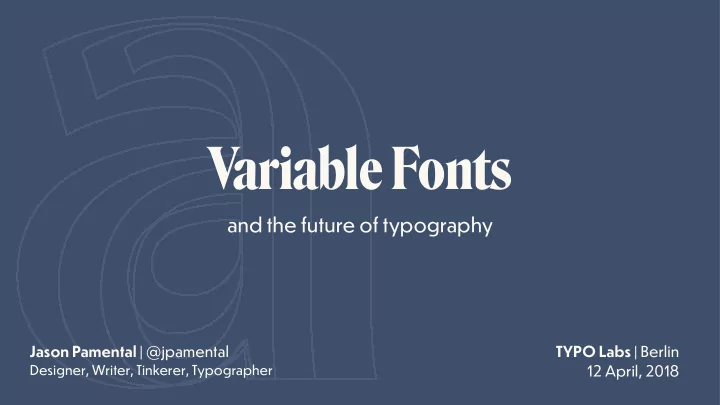
and the future of typography
Variable Fonts
Variable Fonts and the future of typography Jason Pamental | @jpamental TYPO Labs | Berlin Designer, Writer, Tinkerer, Typographer 12 April, 2018 cosmografia del minor mondo Type well used is invisible as type Beatrice Warde
and the future of typography
—Beatrice Warde
“The Crystal Goblet”, 1932
Can we set this in Helvetica? Change to “T ype should be seen and not heard” Stop asking for fonts. You can’t have them. We have to load more javascript
—Rich Rutter, author of ‘Web Typography’
then came
width width weight
79lb
weight
53lb
x-height x-height
'wght' font-weight: 88; font-variation-settings: 'wght' 88;
Featuring Output Sans by DJR, Louvette by CJ Dunn, & Amstelvar & Decovar by David Berlow & Type Network
'wght' font-weight: 88; font-variation-settings: 'wght' 88; font-weight: 264; font-variation-settings: 'wght' 264;
Featuring Output Sans by DJR, Louvette by CJ Dunn, & Amstelvar & Decovar by David Berlow & Type Network
font-stretch: 265; font-variation-settings: 'wdth' 265; 'wdth'
Featuring Output Sans by DJR, Louvette by CJ Dunn, & Amstelvar & Decovar by David Berlow & Type Network
font-stretch: 265; font-variation-settings: 'wdth' 265; font-stretch: 402; font-variation-settings: 'wdth' 402; 'wdth'
Featuring Output Sans by DJR, Louvette by CJ Dunn, & Amstelvar & Decovar by David Berlow & Type Network
font-stretch: 265; font-variation-settings: 'wdth' 265; 'wdth'
Featuring Output Sans by DJR, Louvette by CJ Dunn, & Amstelvar & Decovar by David Berlow & Type Network
font-variation-settings: 'slnt' 0; 'slnt'
Featuring Output Sans by DJR, Louvette by CJ Dunn, & Amstelvar & Decovar by David Berlow & Type Network
font-variation-settings: 'slnt' 0; font-variation-settings: 'slnt' 1000; 'slnt'
Featuring Output Sans by DJR, Louvette by CJ Dunn, & Amstelvar & Decovar by David Berlow & Type Network
font-style: normal; font-variation-settings: 'ital' 0; 'ital'
Featuring Output Sans by DJR, Louvette by CJ Dunn, & Amstelvar & Decovar by David Berlow & Type Network
font-style: normal; font-variation-settings: 'ital' 0; font-style: italic; font-variation-settings: 'ital' 1; 'ital'
Featuring Output Sans by DJR, Louvette by CJ Dunn, & Amstelvar & Decovar by David Berlow & Type Network
font-variation-settings: 'opsz' 12; 'opsz'
Featuring Output Sans by DJR, Louvette by CJ Dunn, & Amstelvar & Decovar by David Berlow & Type Network
font-variation-settings: 'opsz' 12; font-variation-settings: 'opsz' 80; 'opsz'
Featuring Output Sans by DJR, Louvette by CJ Dunn, & Amstelvar & Decovar by David Berlow & Type Network
font-variation-settings: 'GRAD' 88; 'GRAD'
Featuring Output Sans by DJR, Louvette by CJ Dunn, & Amstelvar & Decovar by David Berlow & Type Network
font-variation-settings: 'GRAD' 88; font-variation-settings: 'GRAD' 150; 'GRAD'
Featuring Output Sans by DJR, Louvette by CJ Dunn, & Amstelvar & Decovar by David Berlow & Type Network
font-variation-settings:'YTAS' 750,'YTDE' 250; 'YTAS' & 'YTDE'
Featuring Output Sans by DJR, Louvette by CJ Dunn, & Amstelvar & Decovar by David Berlow & Type Network
font-variation-settings:'YTAS' 750,'YTDE' 250; font-variation-settings:'YTAS' 680,'YTDE' 190; 'YTAS' & 'YTDE'
Featuring Output Sans by DJR, Louvette by CJ Dunn, & Amstelvar & Decovar by David Berlow & Type Network
font-variation-settings: 'BLDA' 0, 'TRMD' 0, 'TRMC' 0, 'SKLD' 0, 'TRML' 0, 'SKLA' 0, 'TRMF' 0, 'TRMK' 0, 'BLDB' 0, 'WMX2' 900, 'TRMB' 0, 'TRMA' 0, 'SKLB' 0, 'TRMG' 0, 'TRME' 0;
um—all of them
Featuring Output Sans by DJR, Louvette by CJ Dunn, & Amstelvar & Decovar by David Berlow & Type Network
font-variation-settings: 'BLDA' 0, 'TRMD' 0, 'TRMC' 0, 'SKLD' 0, 'TRML' 0, 'SKLA' 0, 'TRMF' 0, 'TRMK' 0, 'BLDB' 0, 'WMX2' 900, 'TRMB' 0, 'TRMA' 0, 'SKLB' 0, 'TRMG' 0, 'TRME' 0; font-variation-settings: 'BLDA' 0, 'TRMD' 0, 'TRMC' 750, 'SKLD' 0, 'TRML' 250, 'SKLA' 1000, 'TRMF' 250, 'TRMK' 250, 'BLDB' 1000, 'WMX2' 750, 'TRMB' 500, 'TRMA' 500, 'SKLB' 1000, 'TRMG' 750, 'TRME' 500;
um—all of them
Caslon, 72pt Caslon, 6pt
https://en.wikipedia.org/wiki/Typeface Amstelvar, no optical sizing Amstelvar, with optical sizing
Let’s talk about
—David Sleight, Design Director at ProPublica